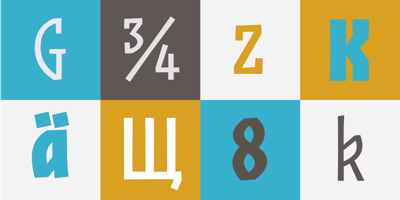
Cowling Sans AOE Free Download
Combine classic elegance with modern versatility using Cowling Sans AOE Font Free Download. This refined sans-serif typeface features a clean, streamlined appearance with subtle historical character—perfect for branding, editorial layouts, signage, vintage-inspired graphics, and professional presentations. Cowling Sans AOE Font Free Download offers the grace of traditional design blended with contemporary usability.
With its slightly humanist proportions and smooth readability, Cowling Sans AOE Font excels in both headlines and body text. Whether you're designing for a heritage brand, museum publication, or premium product line, this font delivers clarity with timeless sophistication.